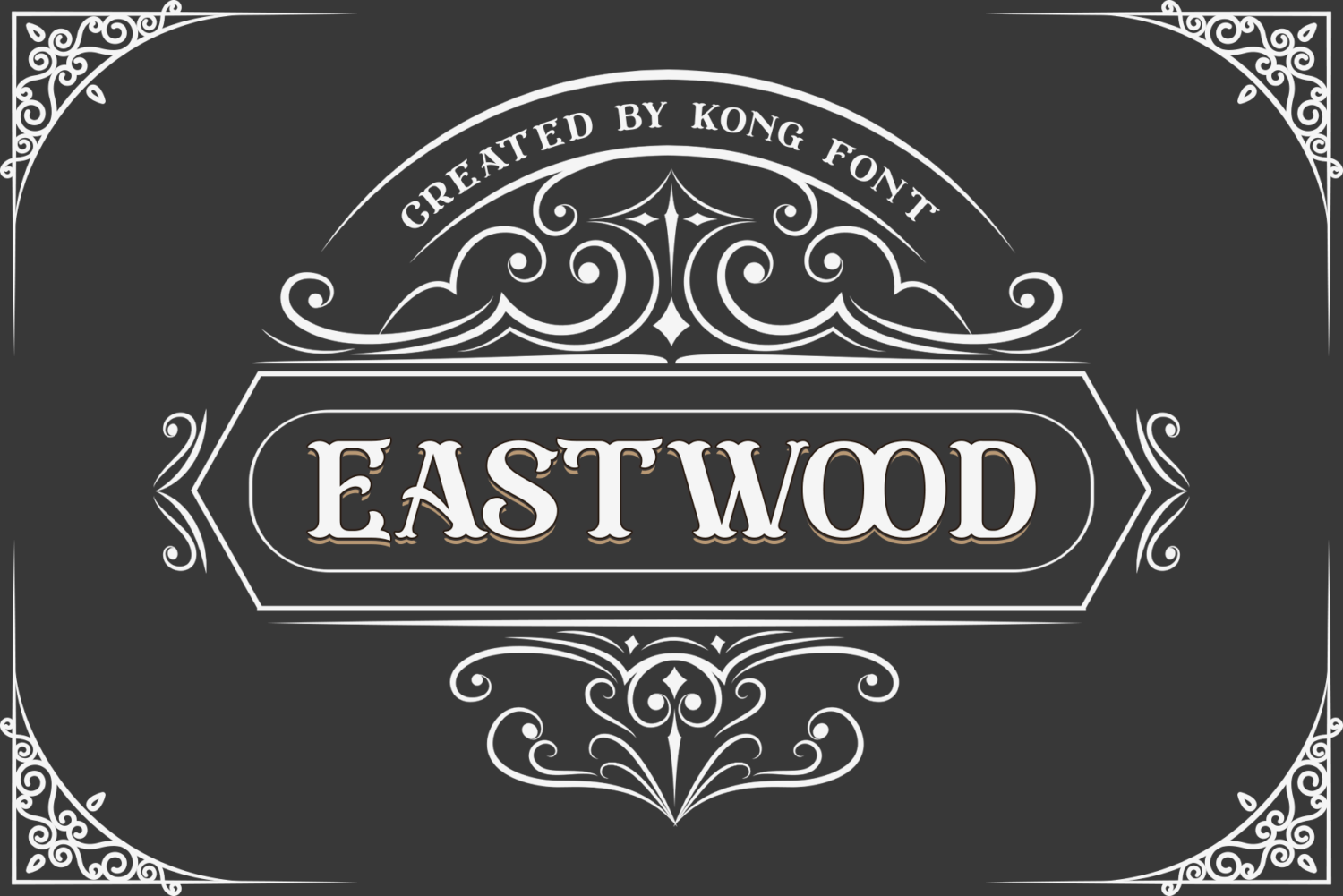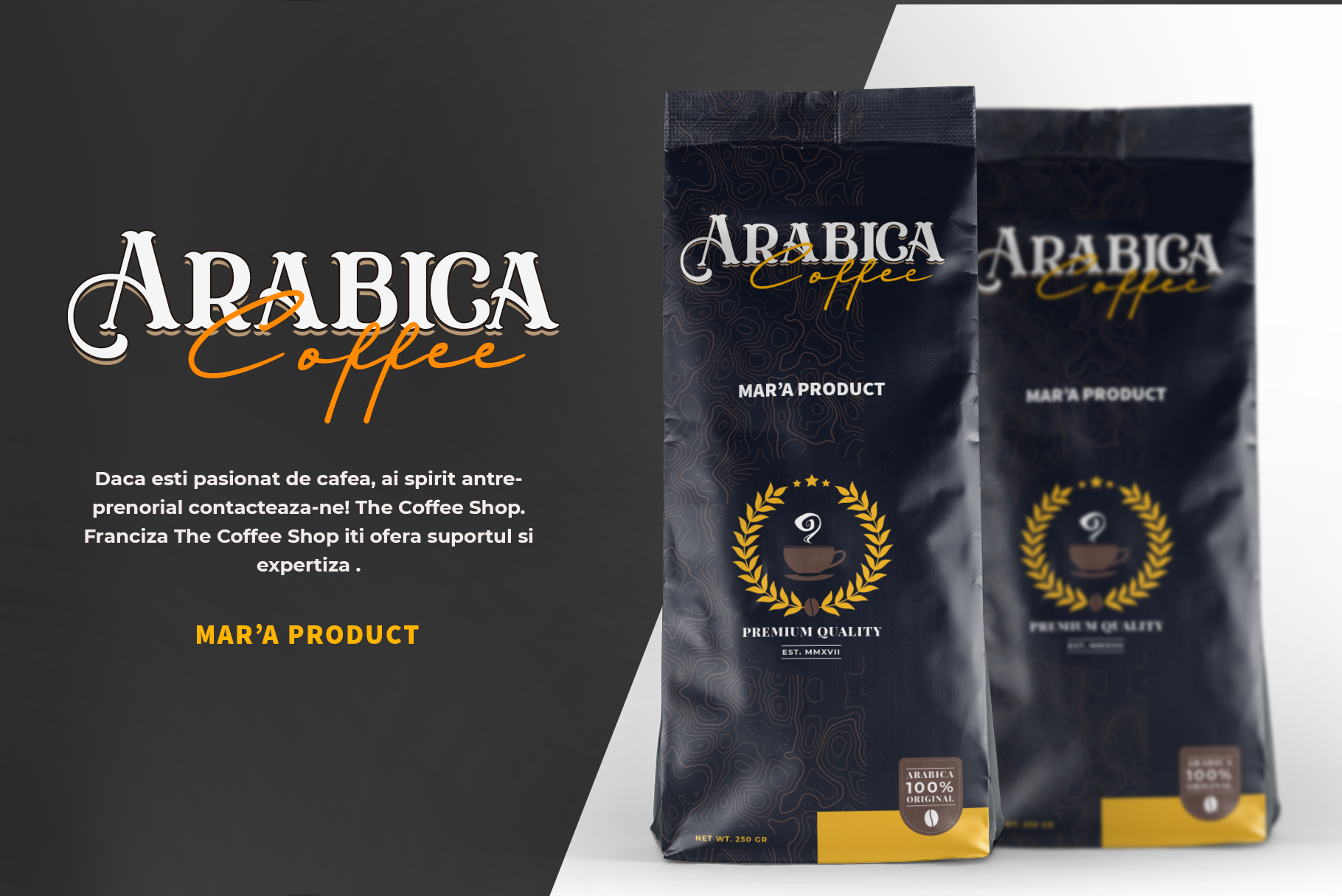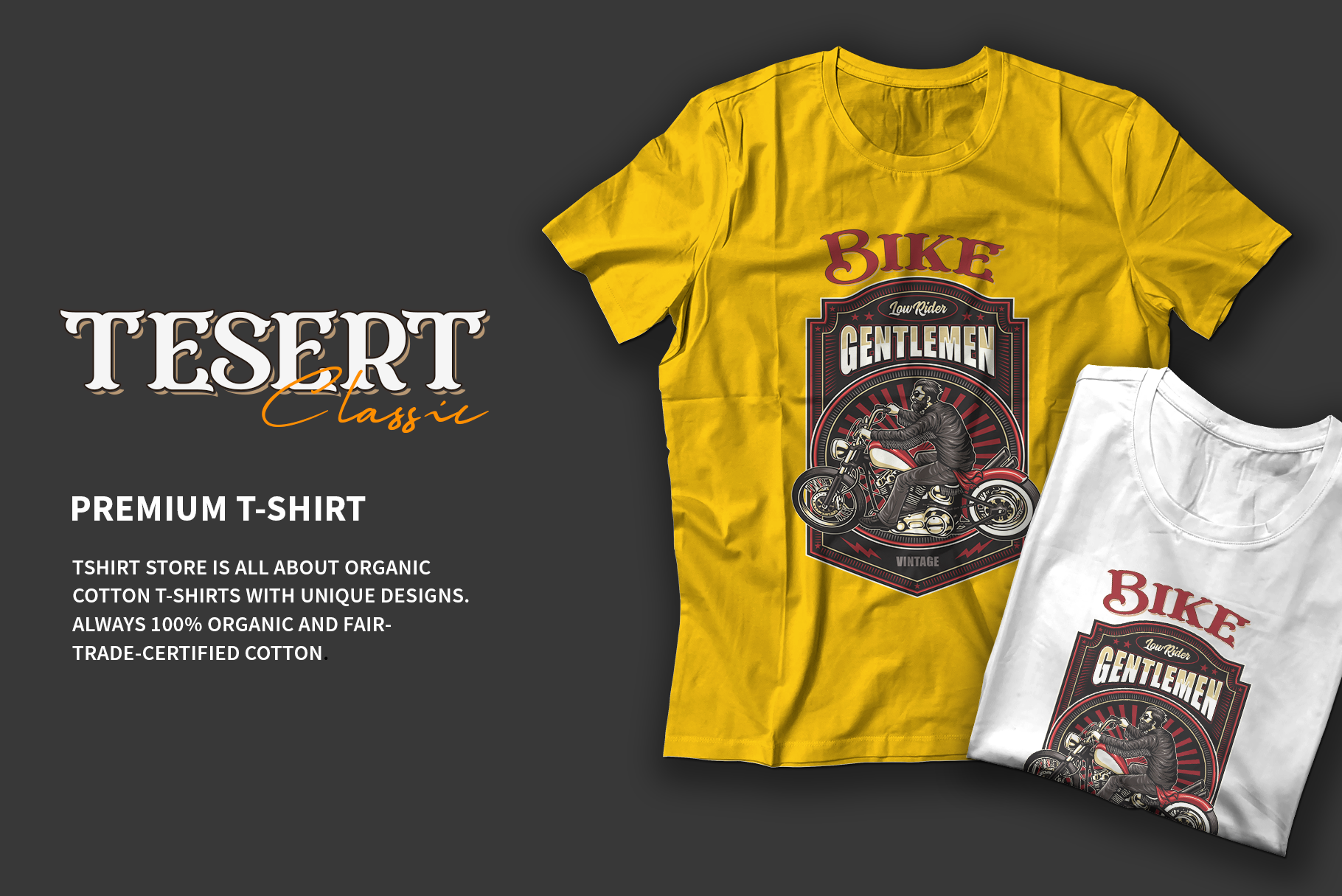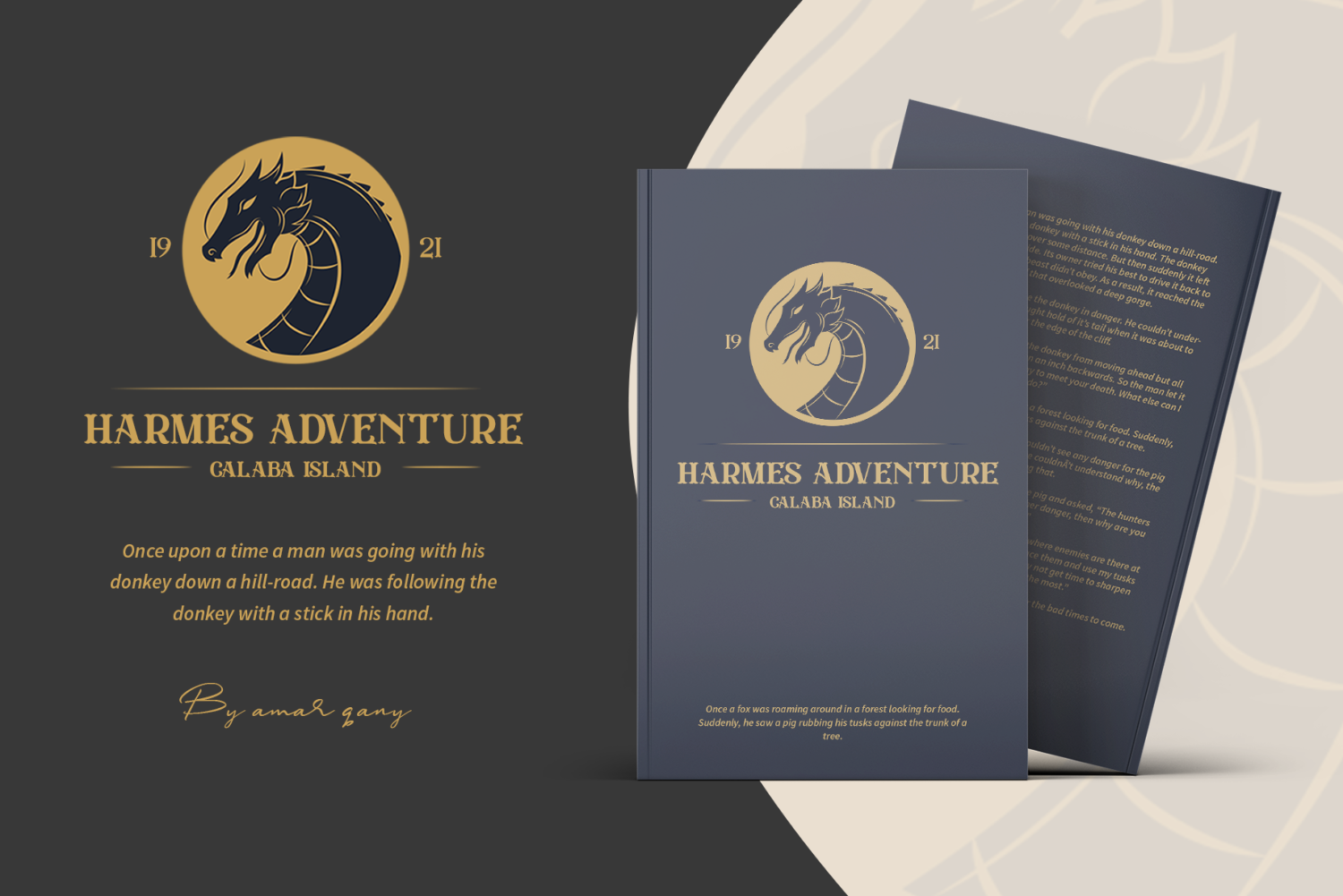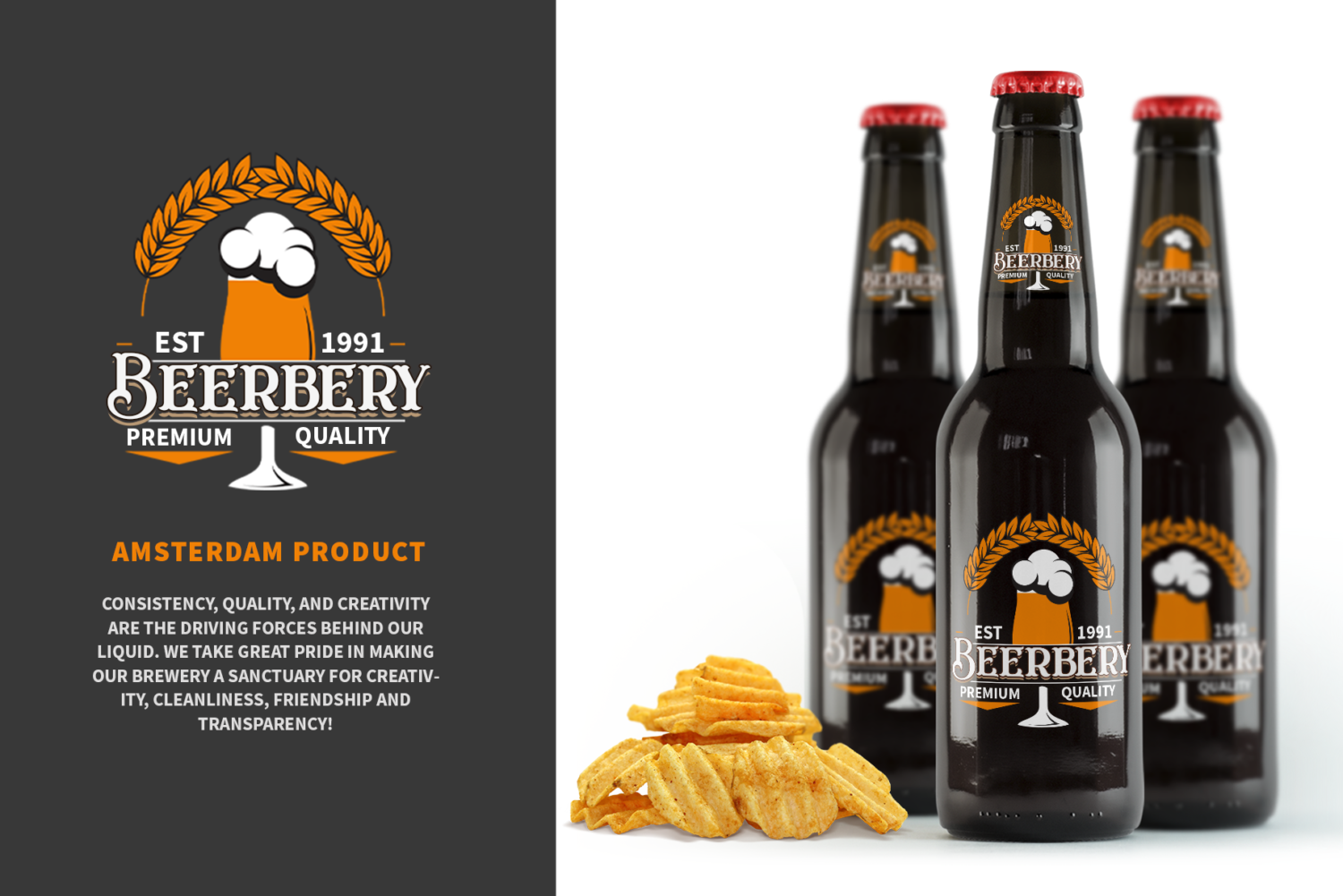
Eastwood Free Font
Introducing our Eastwood Free Font, very suitable to make an adorable invitation for a wedding, birthday, special day. A collection of letters and numbers suitable for your projects also great for Logotype, Branding Design, Logo Design, Digital Lettering Arts, T-Shirt/Apparel, Poster, Magazine, Signs, Advertising Design, and also perfect for your other projects branding. This free typeface was designed by a talented Kong Font.